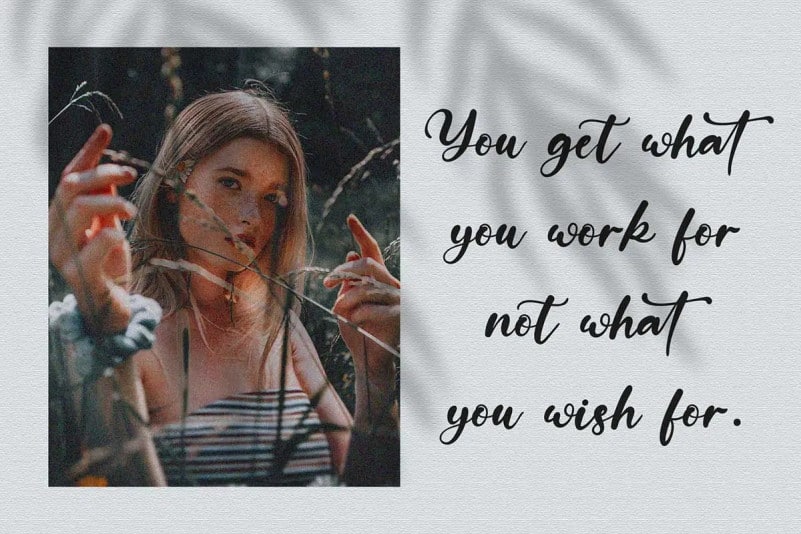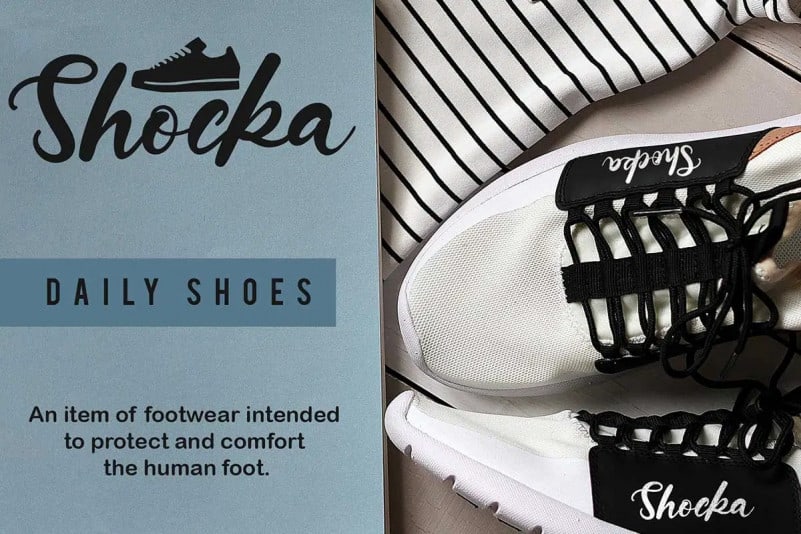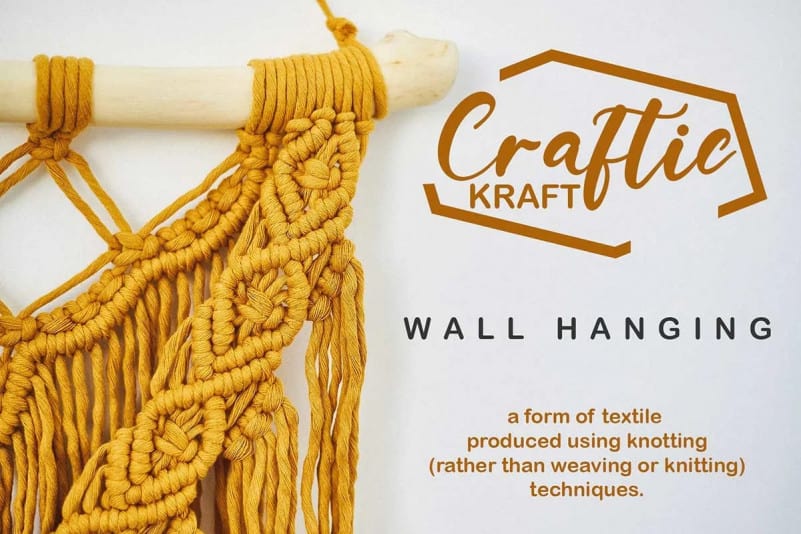
New Seaffon Script Font
New Seaffon Script Font is a modern handwritten font that brings its own unique style to any design project. It’s a natural calligraphy font manufactured by fontkong perfect for crafting, branding, invitation, stationery, wedding designs, social media posts, advertisements, product packaging, product designs, label, photography, watermark, special events, or anything.